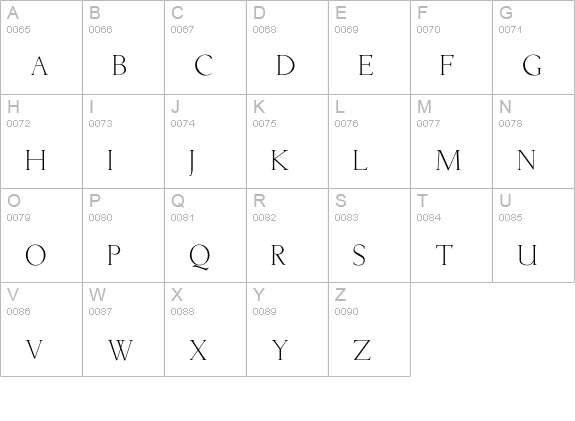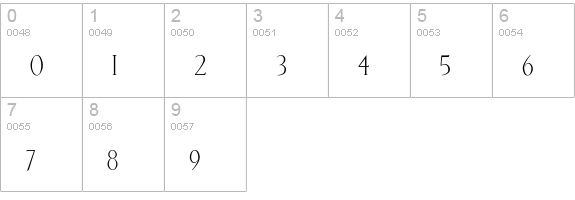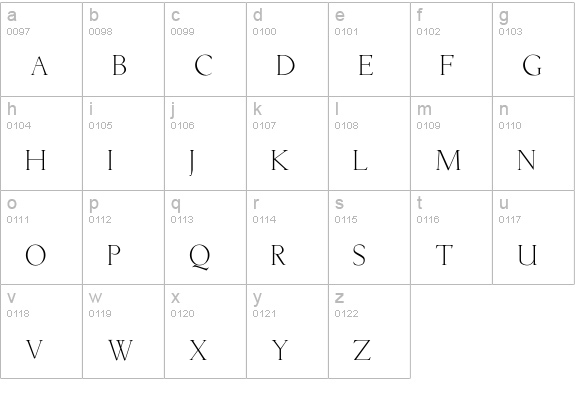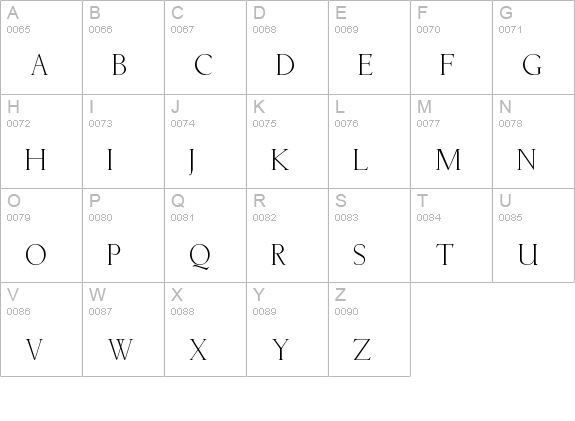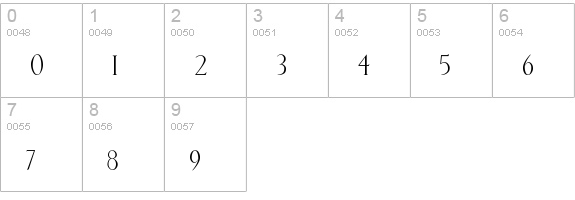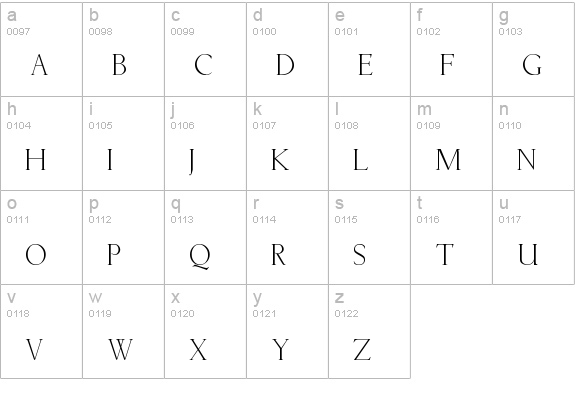
Lichtner font is a modern and stylish typeface that exudes elegance and sophistication. Its sleek lines and unique design make it perfect for a wide range of design projects, from branding to packaging to editorial design. The font features a perfect balance between sharp edges and smooth curves, creating a harmonious and eye-catching look. What's even better is that Lichtner font is available for free! You can easily download it at FontsMarket.com and start using it in your projects right away. Whether you're a graphic designer, a blogger, or a business owner looking to elevate your brand, Lichtner font is sure to make a lasting impression. Don't miss out on this fantastic opportunity to enhance your designs with this stunning typeface.